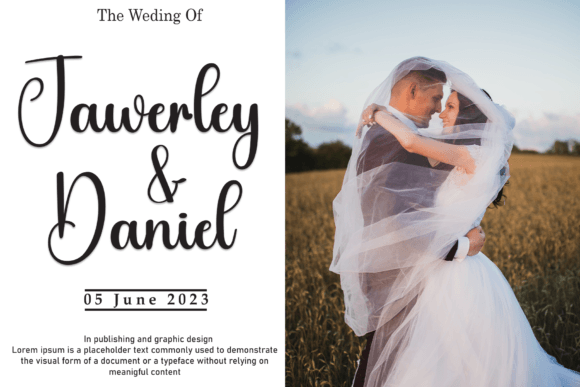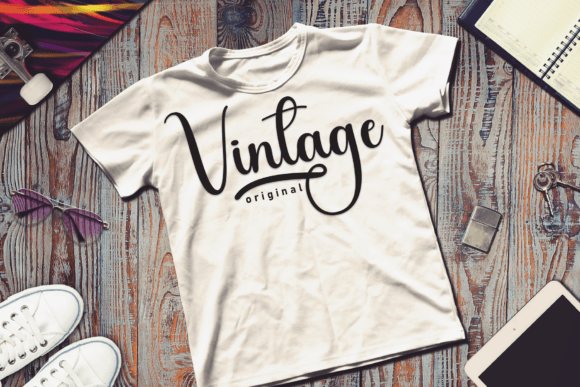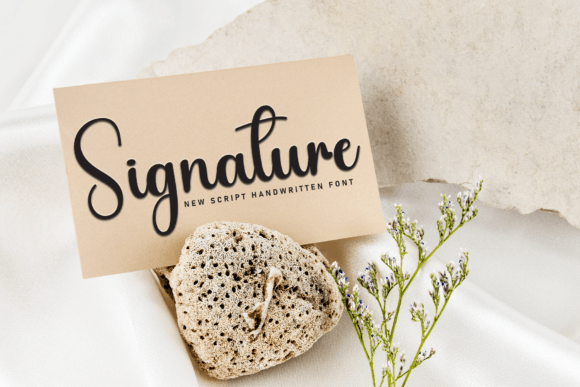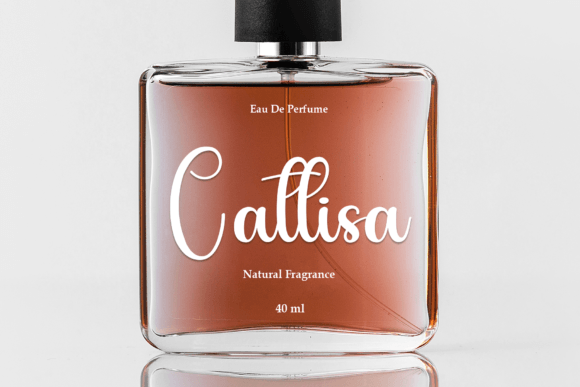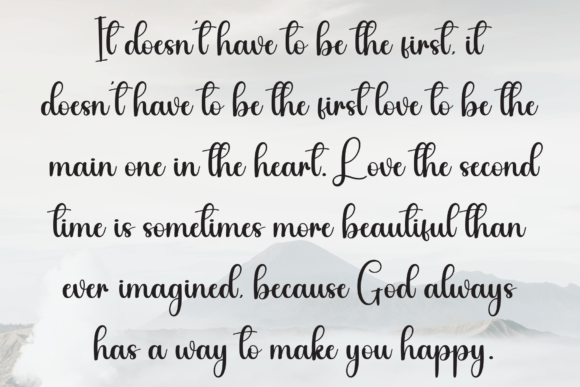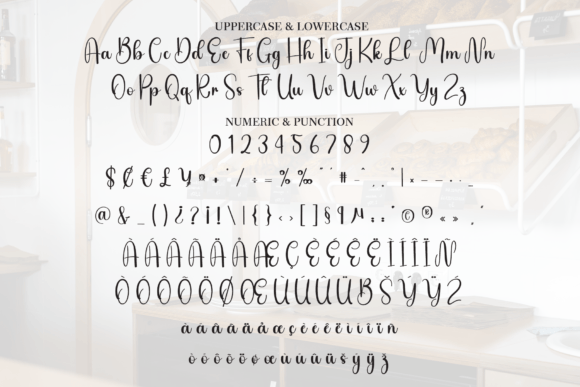
Bakery Font: Elevate Your Creativity with Elegance
Are you a designer, crafter, or DIY enthusiast looking for a font that can add a touch of magic to your creative projects? Look no further than the Bakery font, a beautiful script font that combines elegance with playfulness. In this article, we’ll explore the features and benefits of the Bakery font, and how it can help you turn your ideas into stunning works of art.
What is Bakery Font?
Bakery font is a carefully crafted script font that is designed to bring a touch of sophistication and whimsy to your designs. With its flowing lines and delicate curves, this font is perfect for adding a personal touch to your creative projects. Whether you’re looking for fonts for Instagram, calligraphy scripts for DIY projects, or simply want to add some elegance to your digital designs, Bakery font is the perfect choice.
Key Features of Bakery Font
- Elegant and Playful Design: Bakery font features a unique blend of elegance and playfulness, making it perfect for a wide range of creative projects.
- Magical Script Font: With its flowing lines and delicate curves, this font is sure to add a touch of magic to your designs.
- Highly Versatile: Bakery font can be used for a variety of projects, from Instagram fonts to calligraphy scripts, and even digital designs.
Benefits of Using Bakery Font
So why choose Bakery font for your creative projects? Here are just a few benefits of using this amazing font:
- Adds a Personal Touch: With Bakery font, you can add a personal touch to your designs that will set them apart from the rest.
- Perfect for DIY Projects: This font is ideal for DIY enthusiasts who want to add a touch of elegance to their projects.
- Great for Social Media: Bakery font is perfect for creating stunning social media graphics, including Instagram posts and stories.
- Enhances Creativity: With its unique and elegant design, Bakery font can help inspire your creativity and take your designs to the next level.
- Type with Style: Use Bakery font to add a touch of elegance and whimsy to your project.
Tips and Tricks for Working with Bakery Font
Here are a few tips and tricks to help you get the most out of Bakery font:
- Experiment with Colors: Try pairing Bakery font with different colors to create a unique and eye-catching design.
- Play with Sizes: Experiment with different font sizes to add emphasis and create visual interest.
- Add Decorations: Consider adding decorations, such as flourishes or swashes, to add an extra touch of elegance to your design.